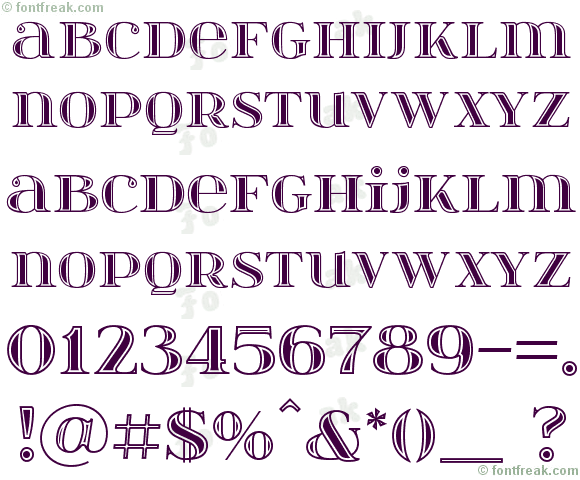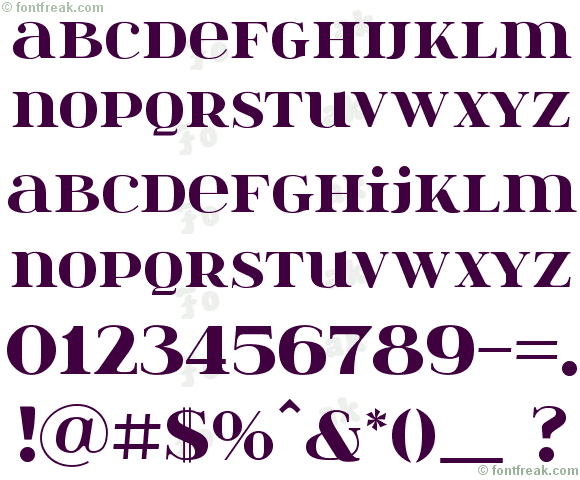
itsadzokeS01
itsadzoke
The itsadzokeS01 font by Grzegorz L. is a unique display typeface characterized by its elegant yet striking visual appeal. This font embraces a decorative style that blends modern aesthetics with a hint of classic inspiration, making it an excellent choice for various creative projects. The font features a medium stroke weight with contrasting elements, providing a sense of depth and interest. Its distinctive letterforms are spaced generously, enhancing legibility while contributing to a sophisticated overall appearance.
This font is particularly well-suited for a range of applications, including wedding invitations where elegance is paramount, movie posters that require a bold statement, and restaurant menus that aim to attract diners with a touch of sophistication. Additionally, itsadzokeS01 can be effectively used in branding materials for boutique shops, helping small business owners create a memorable identity. Content creators will also find value in this font for social media graphics, where eye-catching typography can significantly enhance engagement.